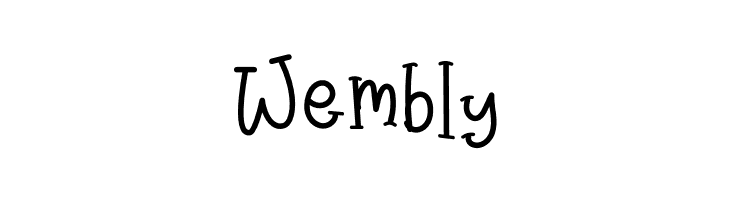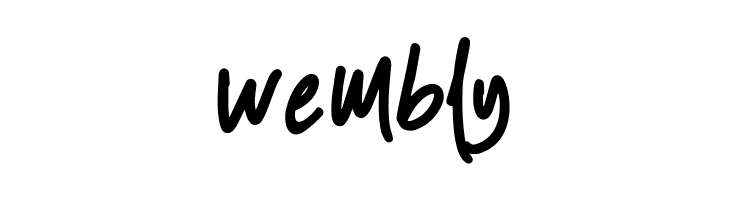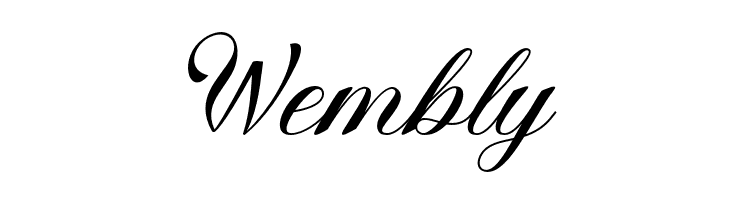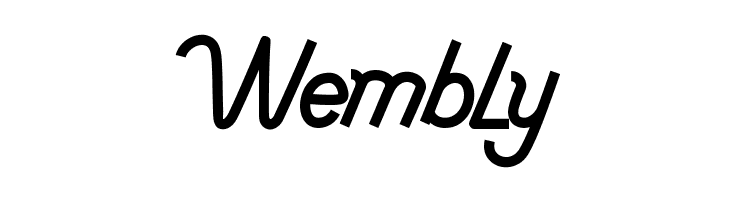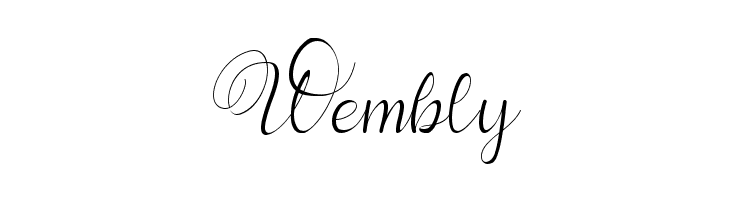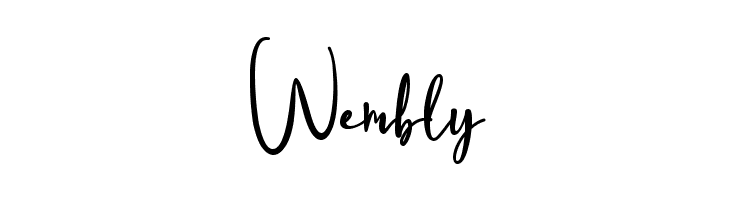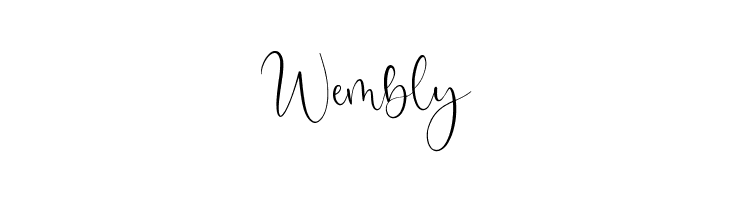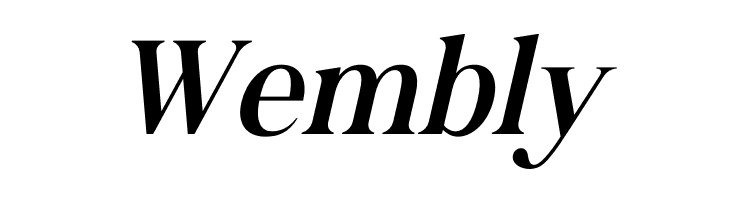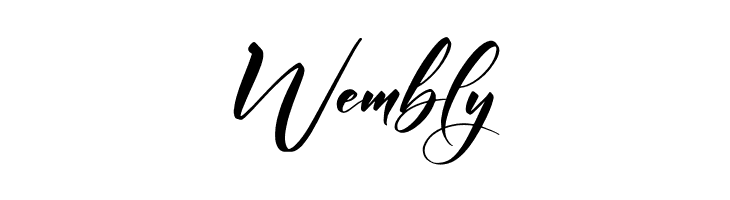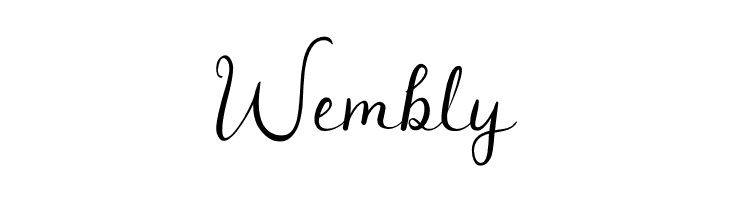
A bold, playful font with rounded, bulbous characters and whimsical flourishes.
A modern, clean sans-serif font with geometric shapes and uniform stroke width.
A cursive, handwritten-style font with elegant, flowing strokes.
Elegant cursive script with a handwritten feel.
A dynamic blend of cursive elegance and bold modernity.
A dynamic and flowing script font with elegant, fluid strokes.
A sophisticated cursive font with elegant, flowing strokes.
A classic serif font with elegant strokes and refined details.
An elegant italic font with smooth, flowing lines and moderate contrast.
A bold, expressive handwritten font with fluid and dynamic strokes.
A bold, handwritten font with a dynamic and playful style.
An elegant script font with intricate swashes and flowing letterforms.
A dynamic, handwritten-style font with fluid curves and expressive strokes.
Handwritten cursive script font.
A bold, expressive script font with fluid, connected strokes.
A lively and expressive cursive script font with bold, flowing strokes.
A playful, handwritten cursive font with a smooth and flowing style.
A whimsical and elegant script font with flowing curves and playful loops.
A romantic and elegant script font with flowing, cursive letters.
An elegant and whimsical script font with ornate curls and loops.
Playful handwritten font with rounded edges.
A graceful script font with flowing, cursive letters and elegant swirls.
An elegant, flowing script font with intricate uppercase and smooth lowercase letters.
A graceful script font with elegant loops and swirls.
A cursive, elegant script font with interconnected letters and smooth strokes.
Elegant handwritten script font.
A lively, expressive handwritten font with fluid strokes and a whimsical feel.
A sophisticated script font with flowing, connected strokes and high contrast.
A classic, elegant script font with flowing cursive letters and ornate details.
A charming and elegant script font with flowing, interconnected letters.
A bold, playful handwritten font with a dynamic and casual style.
A bold, playful, and decorative font with a hand-drawn, whimsical style.
A bold, expressive font with jagged, hand-drawn strokes.
A playful, hand-drawn font with a whimsical and creative style.